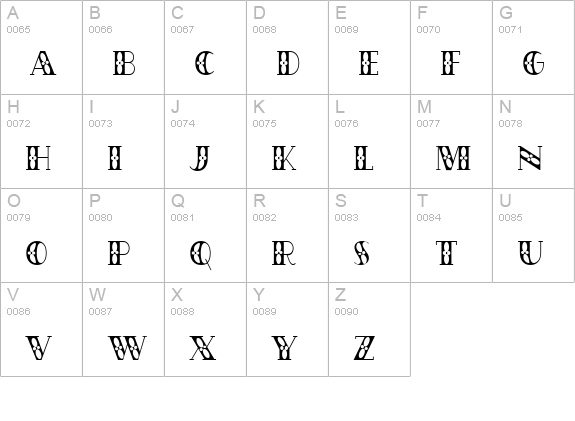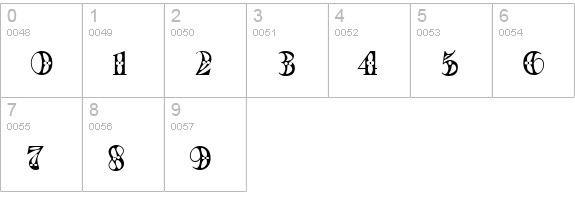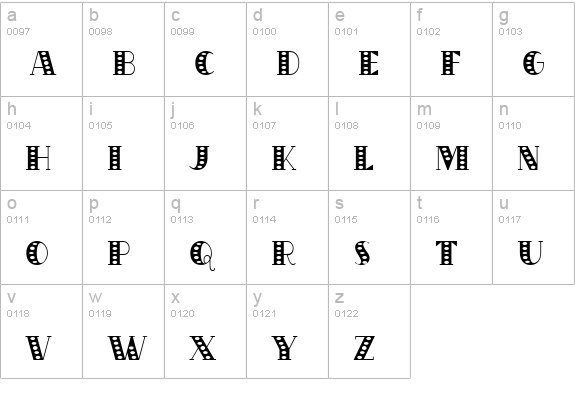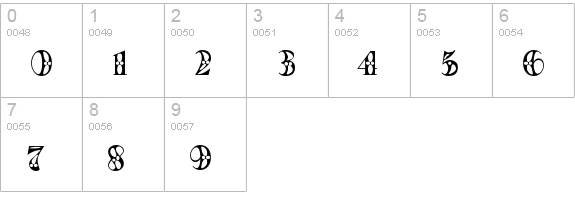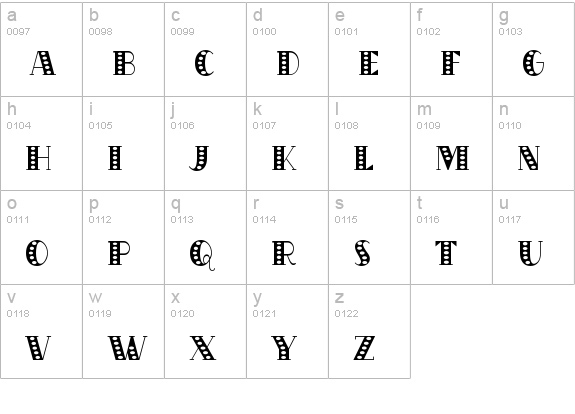
OakParkSpeckled Font Details
OakParkSpeckled font is a charming and whimsical typeface that brings a touch of playfulness to any design project. Its unique speckled texture adds a sense of character and depth, making it perfect for a variety of creative applications. This font exudes a warm and welcoming aesthetic, making it ideal for projects that require a touch of personality and flair. The best part is that OakParkSpeckled font is available for free download at FontsMarket.com. This means that you can easily access this delightful font and incorporate it into your designs without any cost. Whether you're working on invitations, posters, branding materials, or any other project that could use a fun and distinctive font, OakParkSpeckled is sure to add that extra special touch. Download it today and let your creativity soar with this fantastic free font!